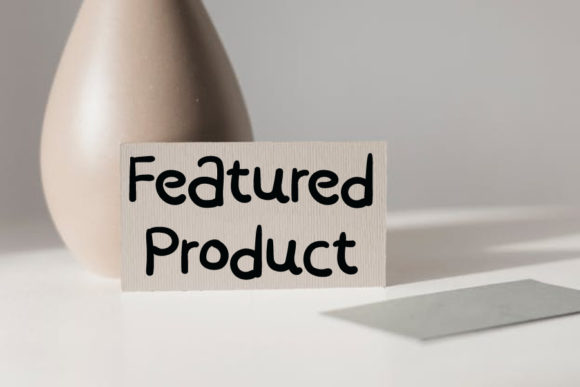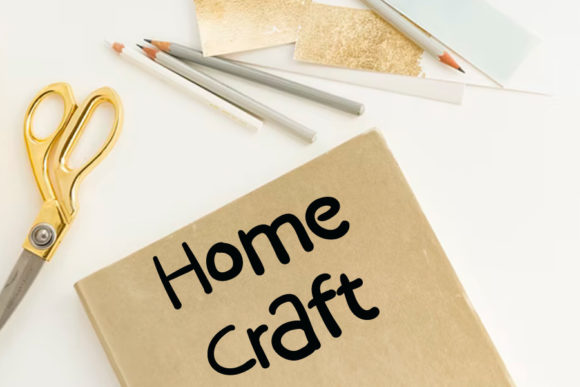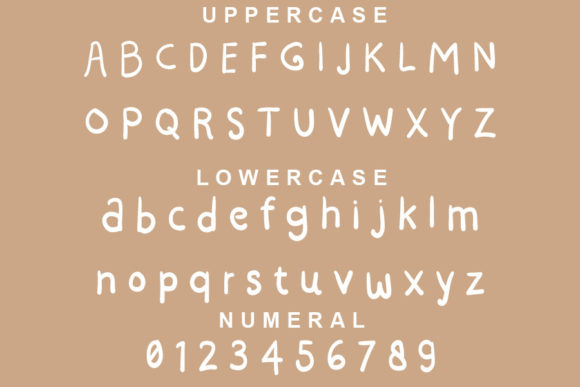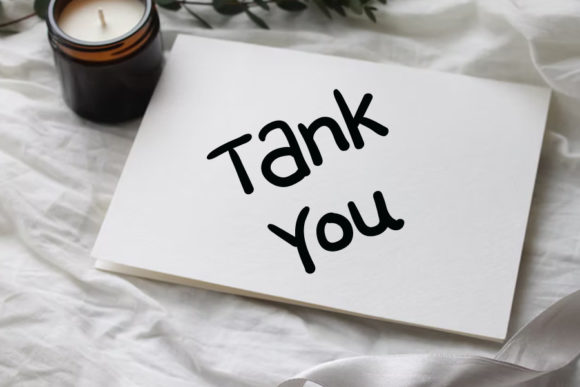
Introduction to Chiki Chiki Font
Chiki Chiki is a neat and clean handwritten font.
Key Features of Chiki Chiki Font
Why Choose Chiki Chiki Font?
Chiki Chiki Font offers exceptional quality and versatility, making it a valuable addition to your design toolkit. Whether you’re creating for personal projects or commercial use, Chiki Chiki Font delivers professional results.